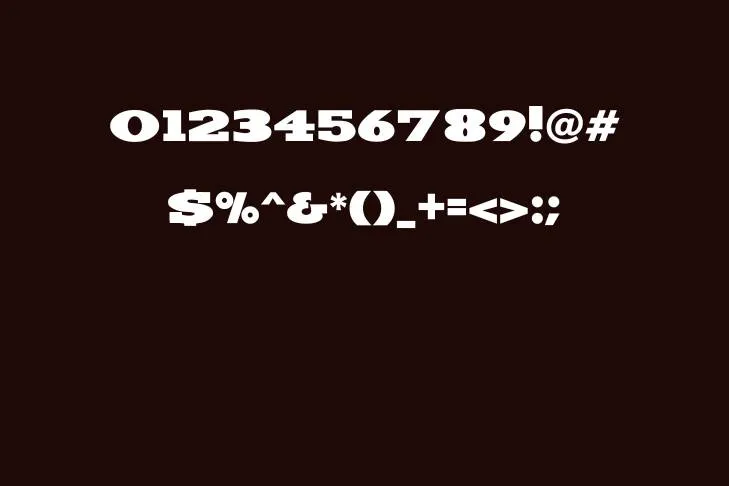
It is a distinctive Display typeface that is both attractive and suitable for a variety of purposes and it is fabulously devised by a font studio called SharkShock. Smooth lines, strong curves, and sharp angles combine to produce a standout design in this typeface, which is a modern take on traditional lettering. Being a multipurpose typeface, Hundo Font is appropriate for many uses, including packaging and company branding as well as promotional materials.
Styles and Weights of Hundo Font
The typeface comes in a variety of weights, such as light, regular, and bold, providing designers with a variety of choices to select from that fit the requirements of any design. capital letters and lowercase letters and numbers, punctuation marks, and special characters are all represented in its distinctive set of glyphs to provide additional versatility.
It has solid sleek contours which provide it with a professional appearance, but it also stands out from other types due to its traits. This respectable-looking Font features a traditional and clean aesthetic which makes it ideal for contemporary design projects. Its sharp edges and basic geometric shapes look good in both print and digital media.
Characters of Hundo Font
More Ways to Use Hundo Font
This stunning font is excellent for a variety of tasks, including advertisements, emblems, news headlines, and body content. For advertising and trademarks, its geometric shapes and smooth contours make it a great option for modern businesses seeking to establish an appealing and sophisticated image. Because of its adaptability, it’s also a fantastic choice for web design ideas because it can be used to construct headings and subheadings that stand apart from the rest of the content on the page.
The bold and simple design of this superb typeface works awesome in print media for advertisements, packaging, and other promotional items. Additionally, its gorgeous font style encourages graphic designers to use it for a variety of digital projects, such as designing outstanding website interfaces, video game consoles, or appealing digital billboards. If you desire to make your design project more captivating, I recommend pairing this font with a unique typeface such as the hot rod font.
Following are a few typefaces whose character structure is quite a pair to the Hundo font:
These are three fonts that are similar to Hundo Font and are famous for having simple, geometric patterns. If you’re seeking a simple, contemporary typeface that can be used in a variety of contexts, these fonts are great possibilities.
What type of font is the Hundo font?
It is a distinctive Display typeface that is both attractive and suitable for a variety of purposes and it is fabulously devised by a font studio called SharkShock. Smooth lines, strong curves, and sharp angles combine to produce a standout design in this typeface, which is a modern take on traditional lettering.
Is there any font closest to the Hundo font?
Among many other fonts, Futura font is quite similar to this distinctive typeface because of having the closest aesthetics and attributes.